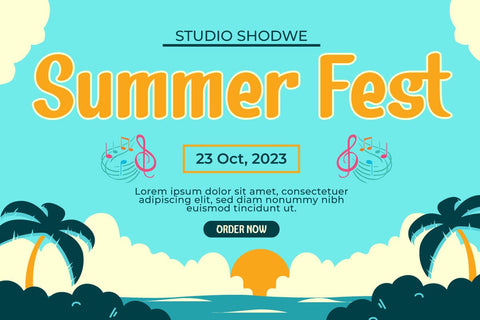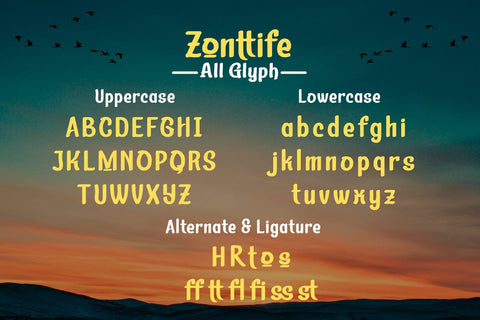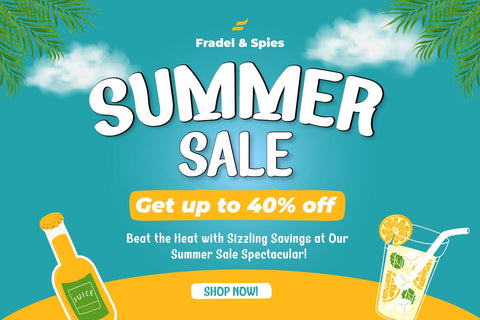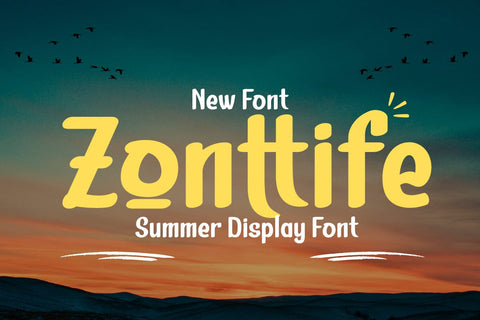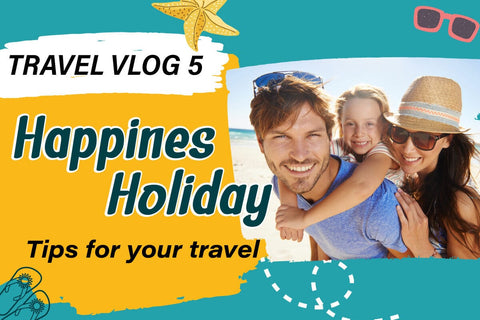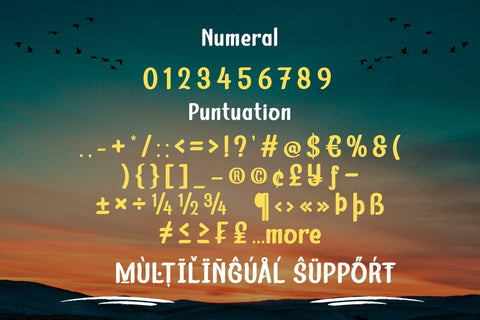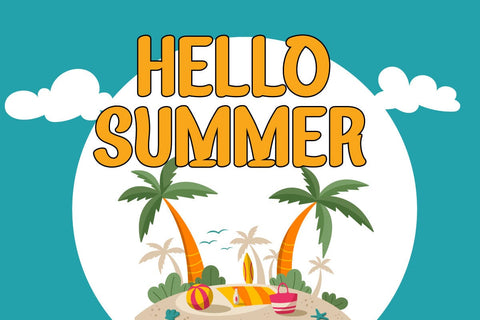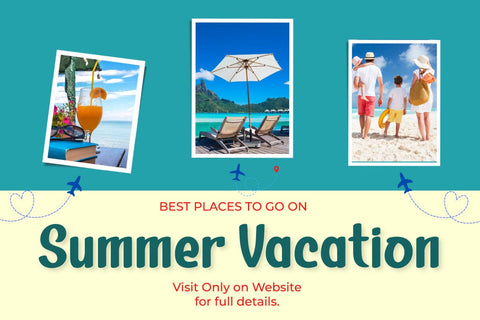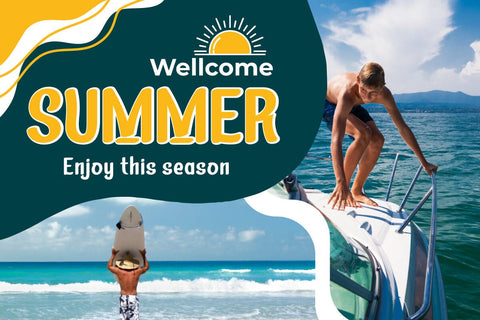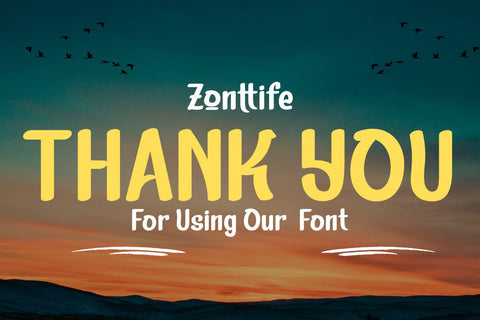
Zonttife Font
Introducing “Zonttife Font” – Embrace the Summer Vibe!
Unlock the essence of summer in your designs with Zonttife Font. This stunning display font is your gateway to infusing every project with the vibrant spirit of the season.
Zonttife Font’s unique style instantly transports your text into the heart of summer. Whether you’re working on beach-themed posters, sun-soaked party invitations, or any other creative endeavor, this font will bring your designs to life with a touch of summer magic.
Crafted with meticulous attention to detail, Zonttife Font ensures that your text radiates the warmth and playfulness of summer. Its versatility shines through in various design applications, from tropical brochures to poolside banners.
But that’s not all – Zonttife Font also supports multiple languages, making it accessible to a global audience. No matter where your creative journey takes you, Zonttife Font will help you express the sun-soaked vibes of summer.
Embrace the summer vibes and let your designs bask in the sunny glow of Zonttife Font. Elevate your creativity and infuse the spirit of the season into every project.